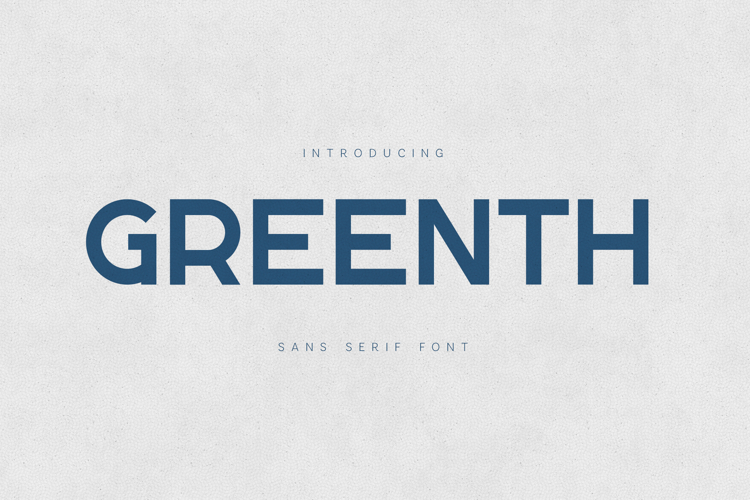
Greenth Modern Clean Sans Serif Font
Greenth is a modern, clean sans serif font designed for clarity, versatility, and contemporary branding. Built with smooth geometric shapes and softened details, Greenth delivers a calm yet confident voice that works beautifully across digital and print design.
This typeface is ideal for branding, logos, editorial layouts, posters, packaging, websites, UI design, and social media visuals. Its balanced proportions and excellent legibility make it suitable for both large headlines and supporting text.
Greenth features an extensive character set with full uppercase and lowercase letters, numerals, punctuation, symbols, and broad multilingual support, allowing designers to use it confidently in international projects. The font’s refined minimal aesthetic makes it perfect for modern brands, lifestyle visuals, creative studios, and forward-thinking design systems.
If you’re looking for a sans serif font that feels modern, human, and timeless, Greenth is built to elevate your design work.